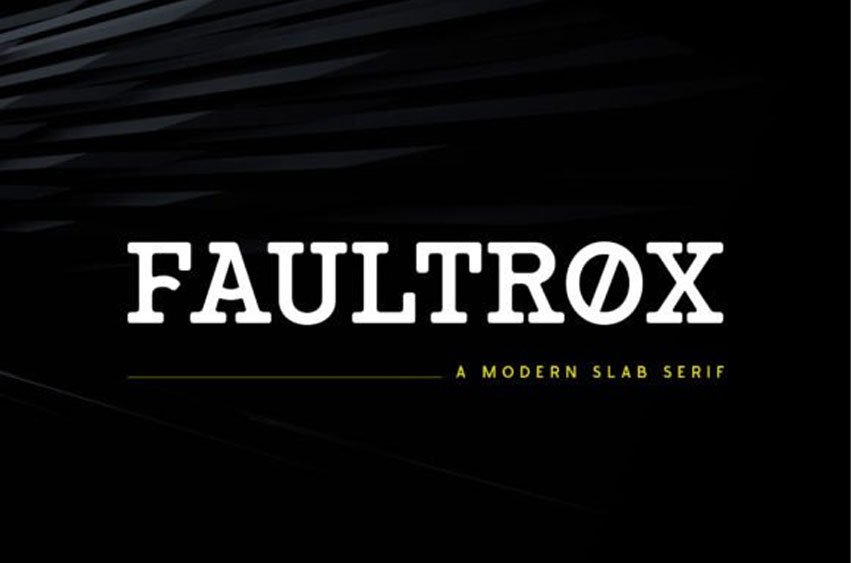
Faultrox Font
Faultrox Font is perfect for your upcoming projects such as classic logo and branding, classic editorial design, magazine, fashion promotional, Ticket design, stationery design, blog design, advertising design, music, men’s skincare, art quote, home decor, book/novel cover title, special events, and any more.
Perfectly crafted to meet all your design needs.